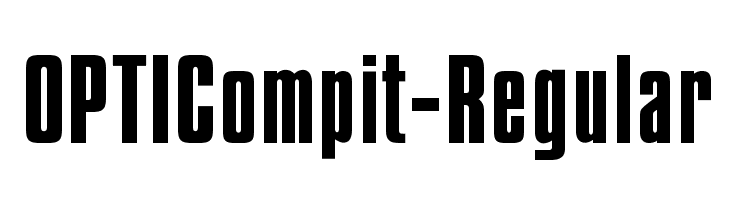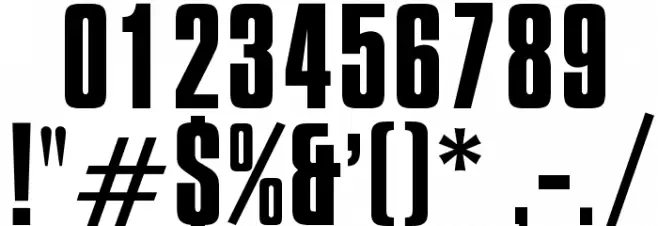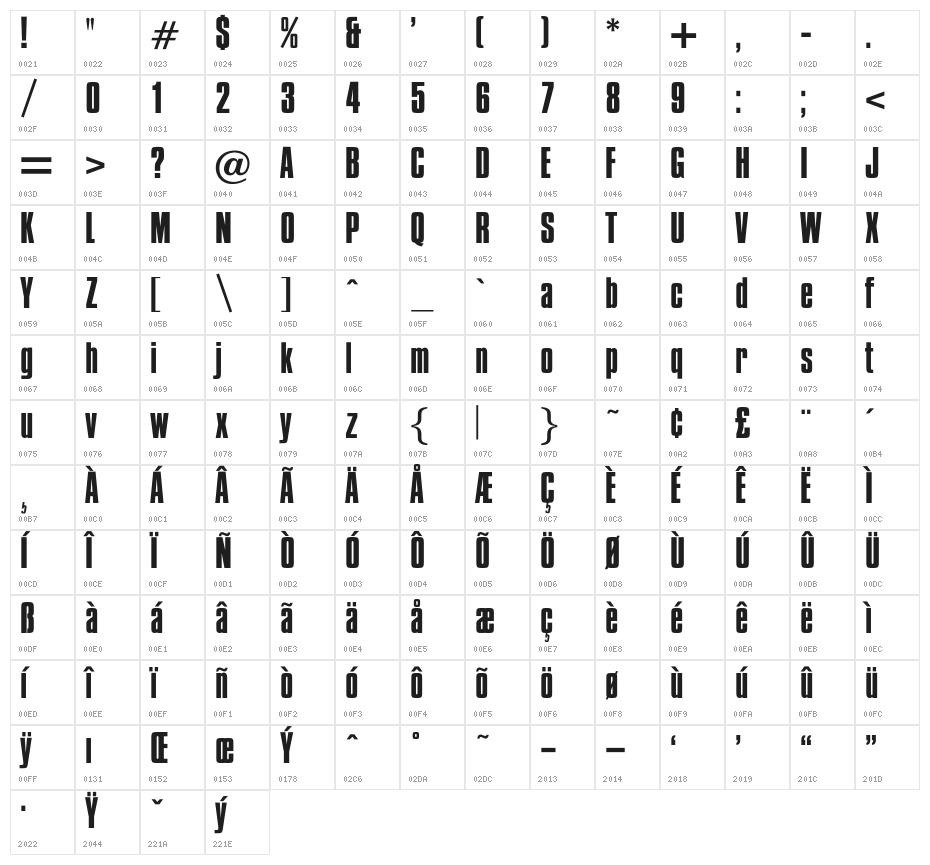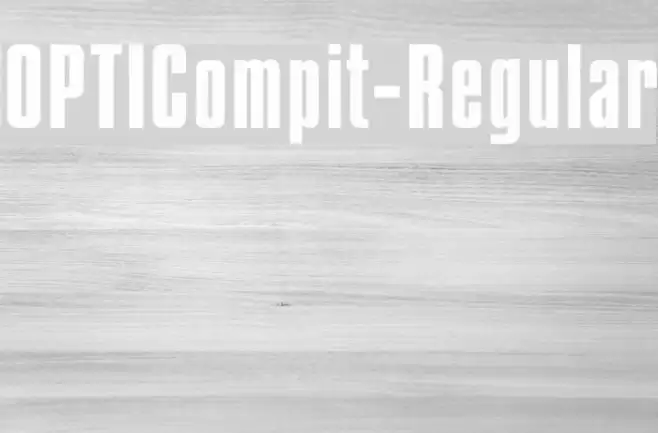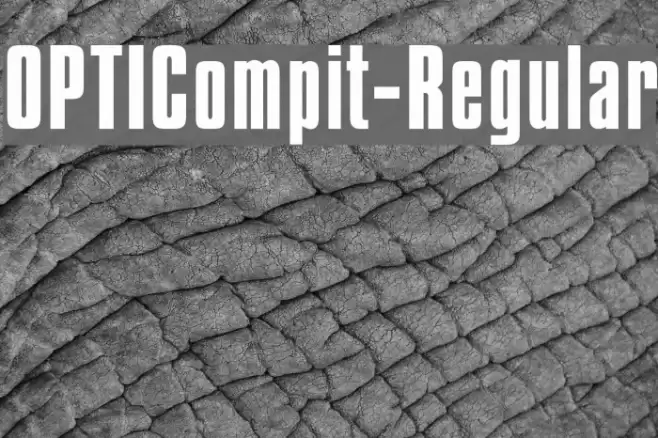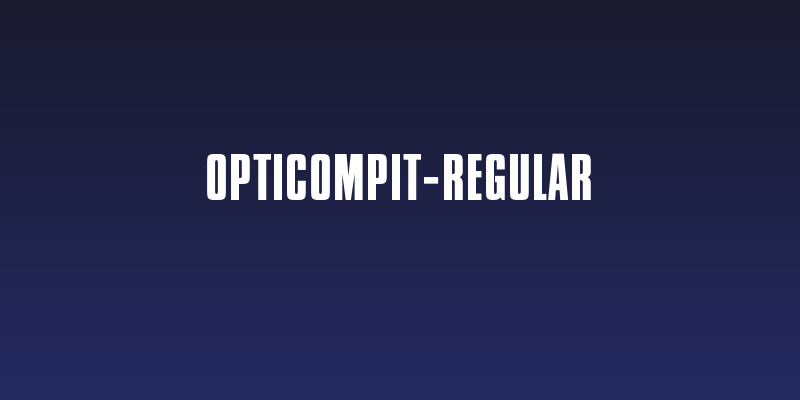
OPTICompit-Regular Font
OPTICompit-Regular Description
This typeface features a bold and impactful design with strong, thick strokes that convey a sense of power and authority. The characters are tightly spaced, enhancing its bold appearance. The uppercase letters are particularly striking, with a uniform height that creates a cohesive and balanced look. The lowercase letters maintain the same boldness, ensuring readability and consistency. The numerals are clear and robust, matching the overall style of the alphabet. Special characters are also included, providing versatility for various design needs. This font is well-suited for projects that require a strong visual impact.
| Proposed Projects | Ideal for headlines, posters, branding, and any project requiring a strong visual impact. |